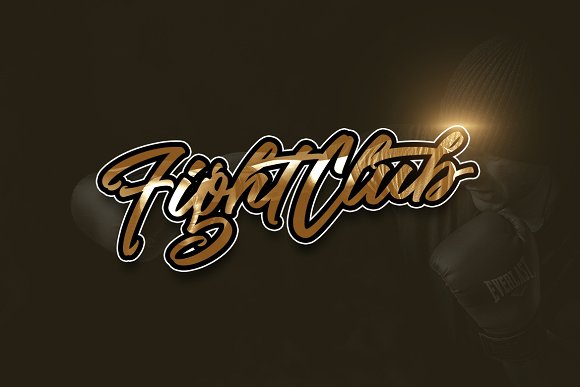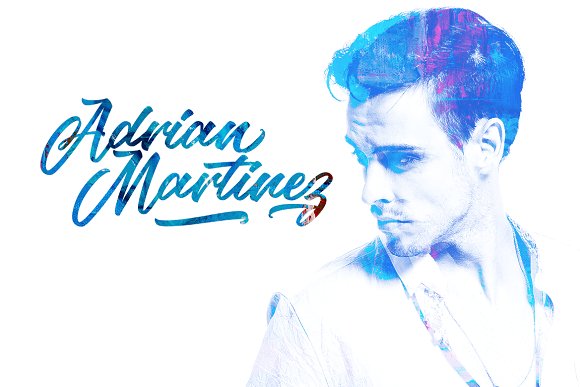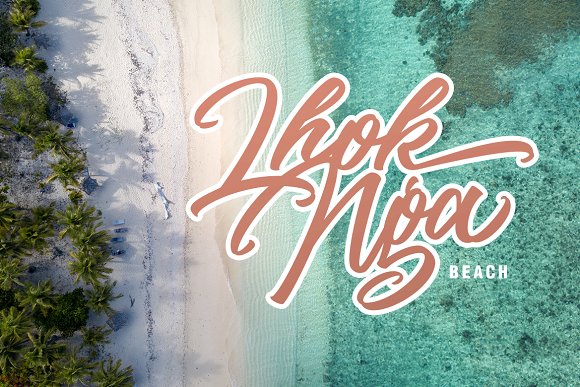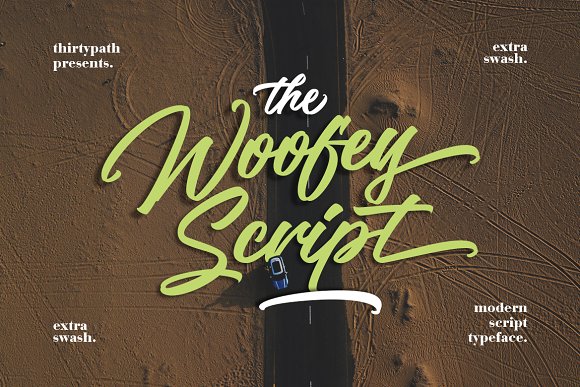
The Woofey Script Typeface
Hello…!! Great to see you :). Welcome to my new typeface. This is The Woofey Script font, the display handbrush lettering, simple and easy to create awesome lettering, just type your words and then you will immediately see the great results.
The Woofey Script is handtype font, every single letters have been carefully crafted to make your text looks beautiful. With modern style this font will perfect for many different project ex: quotes, blog header, poster, wedding, branding, logo, fashion, apparel, letter, invitation, stationery, etc.